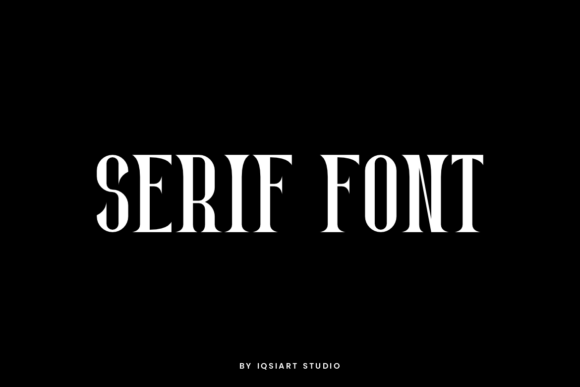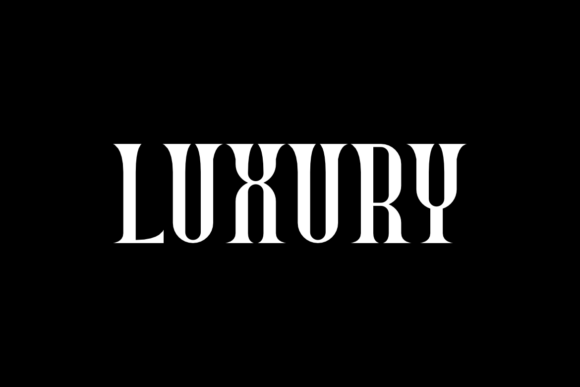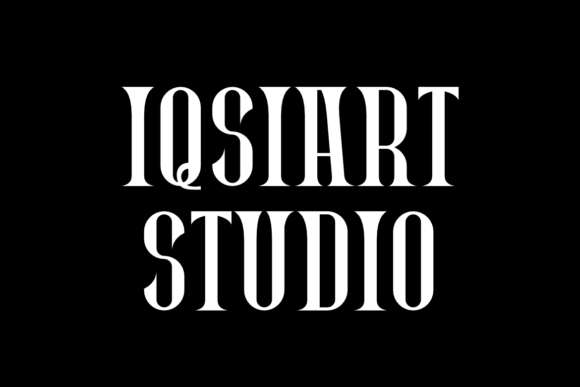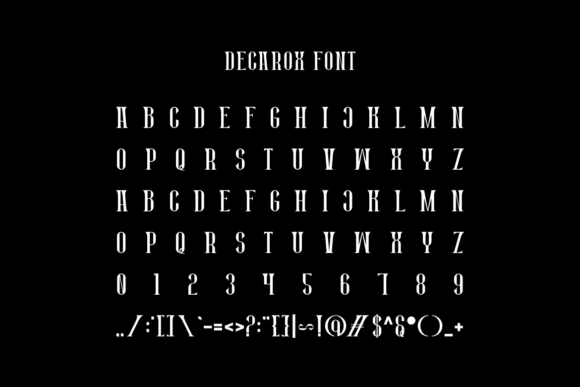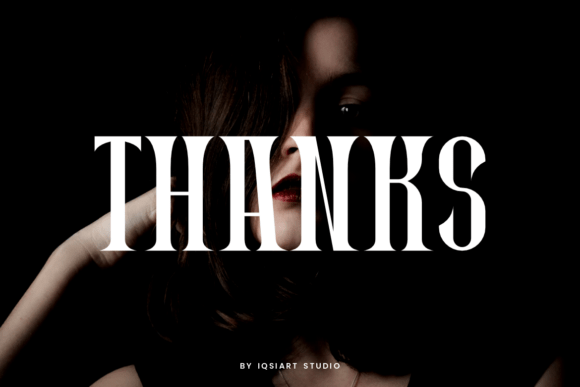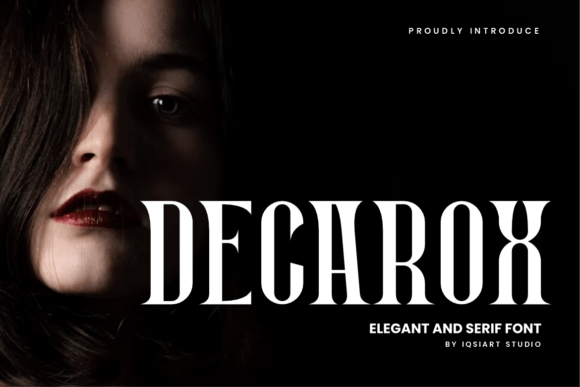
Introducing Decarox Font: The Epitome of Elegance and Dramatic Flair
In the realm of typography, few fonts manage to strike a balance between elegance and drama. Decarox, a high-contrast serif font, is one such exceptional design that seamlessly blends sophistication with bold presence. Its unique characteristics make it an ideal choice for premium branding, editorial layouts, and fashion-forward visuals.
The Distinctive Features of Decarox
Decarox is defined by its sharp vertical strokes and sculptural letterforms, which lend it an air of refinement and luxury. The font’s high contrast between thick and thin lines creates a visually striking effect, making it perfect for headlines, logos, and upscale design compositions. The refined curves and stylized cuts in Decarox contribute to its luxurious yet contemporary aesthetic, setting it apart from more traditional serif fonts.
Design Philosophy and Applications
Decarox was designed with a clear vision: to evoke a sense of sophistication and elegance in any design project. Its dramatic flair makes it an excellent choice for fashion brands, editorials, and high-end advertising. The font’s versatility allows it to be used across various platforms, from digital media to print publications. Whether you’re designing a logo, creating an editorial spread, or crafting a brand identity, Decarox offers the perfect blend of style and substance.
Why Choose Decarox?
• Elegance and Drama: Decarox brings an unmatched level of elegance and drama to any design, making it stand out in a crowded visual landscape.
• Versatility: Its high-contrast design and sculptural letterforms make it versatile enough for use in various design projects, from fashion magazines to luxury brand logos.
• Contemporary Aesthetic: Decarox’s refined curves and stylized cuts give it a contemporary look that appeals to modern designers and audiences alike.
• Premium Quality: Designed with premium branding in mind, Decarox offers the quality and sophistication that brands strive to convey.
Using Decarox in Design Projects
When incorporating Decarox into your design projects, consider the following tips to maximize its impact:
• Headlines and Titles: Use Decarox for headlines and titles to draw attention and convey luxury.
• Branding and Logos: Its sculptural letterforms make Decarox an excellent choice for logos and brand identities that aim to exude elegance and sophistication.
• Editorial Layouts: For fashion editorials and magazines, Decarox can add a touch of glamour and high-end style.
• Digital and Print: Decarox’s versatility shines across both digital platforms and print media, making it a valuable asset for any designer.
Decarox font stands as a testament to the power of typography in design. Its unique blend of elegance, drama, and sophistication makes it an invaluable tool for designers aiming to create premium, fashion-forward visuals. Whether you’re working on a luxury brand’s identity, a high-fashion editorial, or any project that demands a touch of elegance, Decarox is sure to exceed your expectations. Embrace the dramatic flair and refined aesthetic of Decarox to elevate your designs to new heights of sophistication and style.